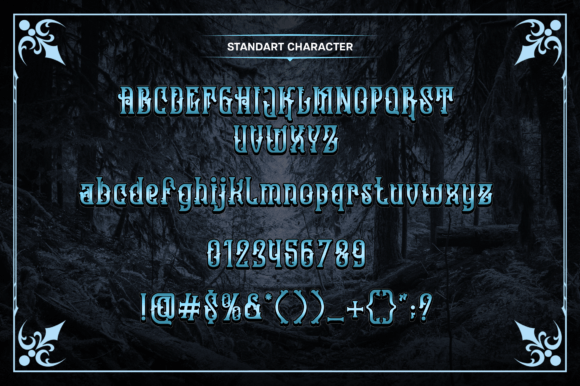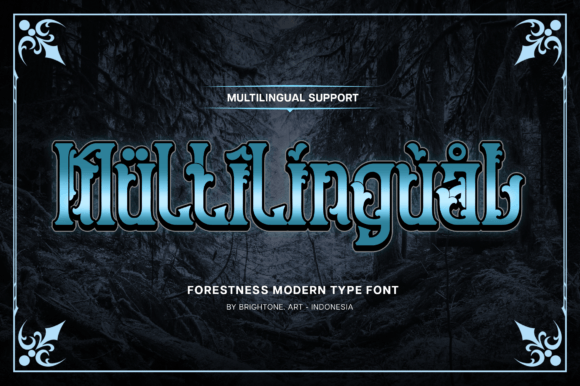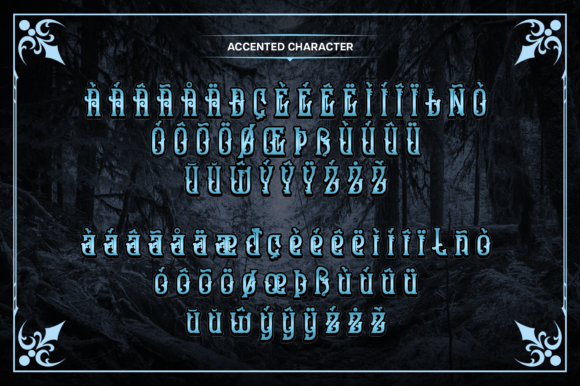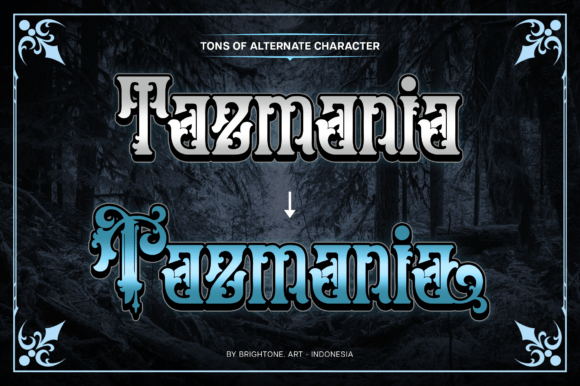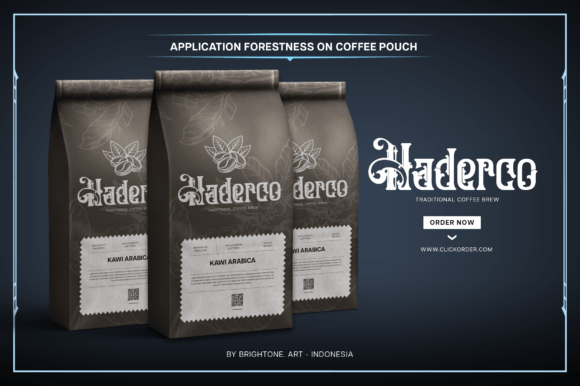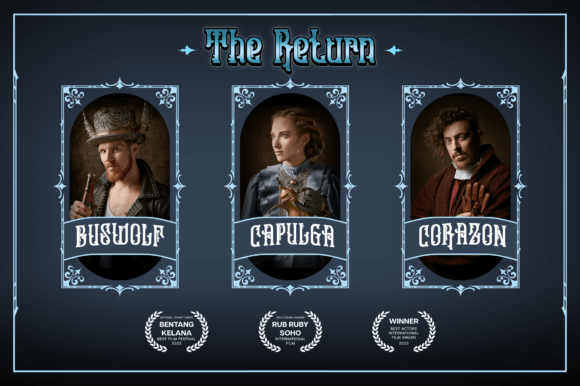
Introducing Forestness Font: A Unique and Stylish Blackletter Typeface
Are you tired of using the same old fonts for your design projects? Look no further than Forestness Font, a stunning blackletter typeface that combines shapes to create a truly unique and stylish look. In this article, we’ll dive into the features and benefits of Forestness Font, and explore how it can elevate your designs to the next level.
What is Forestness Font?
Forestness Font is a one-of-a-kind blackletter font that boasts a distinctive and eye-catching style. By combining shapes, this font creates a mesmerizing effect that’s sure to capture the attention of your audience. Whether you’re working on a logo, label, packaging, or branding project, Forestness Font is the perfect choice for designers and crafters looking to add a touch of elegance and sophistication.
Key Features of Forestness Font
- Unique and Stylish Design: Forestness Font features a distinctive blackletter style that’s unlike any other font on the market.
- Versatile: Forestness Font is perfect for a variety of design projects, including logo lettering, logos, labels, packaging, stickers, branding, and more.
Benefits of Using Forestness Font
So why choose Forestness Font for your design projects? Here are just a few benefits of using this amazing font:
- Add a Touch of Elegance: Forestness Font adds a level of sophistication and elegance to any design project, making it perfect for high-end branding and packaging.
- Stand Out from the Crowd: With its unique and stylish design, Forestness Font is sure to help your design project stand out from the competition.
How to Use Forestness Font
Using Forestness Font is easy! Here are a few tips to get you started:
- Pair it with Other Fonts: Forestness Font pairs well with a variety of other fonts, so don’t be afraid to experiment and find the perfect combination for your design project.
- Experiment with Swashes: With its PUA encoding, Forestness Font comes with a range of swashes and glyphs to help you customize your design.
- Use it for Branding and Packaging: Forestness Font is perfect for branding and packaging projects, adding a touch of elegance and sophistication to any product.
Who is Forestness Font for?
Forestness Font is perfect for a variety of designers and crafters, including:
- Graphic Designers: Forestness Font is a must-have for any graphic designer looking to add a unique and stylish touch to their design projects.
- Crafters: Whether you’re working on a DIY project or creating handmade products, Forestness Font is a great choice for adding a touch of elegance and sophistication.
- Branding and Packaging Designers: Forestness Font is perfect for designers working on branding and packaging projects, adding a level of sophistication and elegance to any product.
In conclusion, Forestness Font is a unique and stylish blackletter typeface that’s perfect for designers and crafters looking to add a touch of elegance and sophistication to their design projects. With its PUA encoding and versatile design, Forestness Font is a must-have for any designer looking to take their projects to the next level. So why wait? Try Forestness Font today and see the difference it can make!